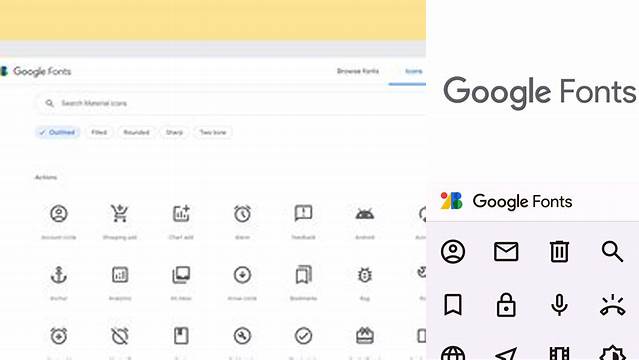
Google Fonts Material Icons Sharp: A Comprehensive Guide
Hey guys, let's dive deep into the world of Google Fonts Material Icons Sharp! If you're a developer, designer, or just someone tinkering with web projects, you know how crucial icons are for user experience and visual appeal. They're the little visual cues that guide users, convey meaning instantly, and add a polished look to your interfaces. Today, we're focusing on a specific, super-useful set: the Material Icons Sharp variant from Google Fonts. These aren't just any icons; they're designed with a clean, crisp, and modern aesthetic that really pops. So, buckle up as we explore everything you need to know about integrating and utilizing these fantastic icons in your projects. We'll cover what they are, why they're so great, how to use them, and some pro tips to make them shine.
Understanding Material Icons Sharp
So, what exactly are Material Icons Sharp from Google Fonts, you ask? Well, think of them as the super-sharp, defined cousins of the regular Material Icons. Google's Material Design system is all about creating intuitive, aesthetically pleasing, and consistent user experiences across different platforms. Within this system, Material Icons are a robust library of more than a thousand high-quality vector icons that you can use in your apps and websites. The 'Sharp' variant specifically offers a more geometric and angular rendition of these icons, providing a distinct, modern, and sometimes even a slightly futuristic feel. Unlike the filled or outlined versions, the sharp icons feature distinct, pointed edges and a more minimalist, less rounded appearance. This subtle difference can have a significant impact on the overall aesthetic of your design. They’re perfect for when you need a crisp, clear, and modern look that stands out. These icons are built on a grid system, ensuring scalability and crisp rendering at any size. This means no matter if you're using them on a tiny button or a large banner, they'll always look fantastic. Plus, being from Google Fonts, they come with the advantage of being easily accessible, well-documented, and, of course, free to use under the Apache License 2.0. This makes them an incredibly attractive option for designers and developers working on a budget or looking for a reliable, high-quality icon set without the hassle of licensing fees. We're talking about a comprehensive library that covers a vast range of concepts, from basic navigation and common actions to more abstract ideas, ensuring you'll likely find exactly what you need.
Why Choose Material Icons Sharp?
Alright, guys, let's talk about why you should seriously consider Material Icons Sharp for your next project. There are tons of icon sets out there, so what makes this particular one stand out? First off, it's the aesthetic. The 'Sharp' style brings a unique, modern, and clean edge to your designs. If you're aiming for a sleek, contemporary look, these icons are a perfect fit. They convey a sense of precision and clarity, which is super important for user interfaces where every element needs to be easily understood. Think about it: a sharp, well-defined icon can communicate an action or a concept much faster than a wordy label. Beyond the visual appeal, the sharp icons offer incredible versatility. They integrate seamlessly with the broader Material Design language, meaning if you're already using Material Design principles in your project, these icons will feel right at home. This consistency is key to creating a cohesive and professional-looking product. Moreover, these icons are part of the Google Fonts ecosystem. This isn't just a small perk; it means they're incredibly easy to implement. You get all the benefits of Google Fonts: fast loading, reliable hosting, and simple integration via CSS or JavaScript. No complex uploads, no server management – just pure, easy-to-use icons. And let's not forget the free aspect! These icons are open source, available under the Apache License 2.0. This means you can use them in commercial projects without worrying about licensing costs or restrictions. That's a huge win for developers and startups, allowing you to allocate your resources more effectively. The sheer volume and variety within the Material Icons library, including the Sharp variant, are also a massive advantage. You're not limited to a few dozen icons; you have access to hundreds, covering almost any use case you can imagine. So, if you want style, consistency, ease of use, and cost-effectiveness, Material Icons Sharp is definitely a top contender.
Conclusion: Elevate Your Designs with Sharp Precision
So there you have it, guys! We've journeyed through the world of Google Fonts Material Icons Sharp, uncovering what makes them special, how to implement them, and how to make them truly sing with custom styling. These aren't just tiny graphics; they're powerful tools that can significantly enhance the usability and aesthetic appeal of your digital creations. The 'Sharp' variant offers a distinct advantage for those seeking a modern, clean, and precise visual language. Its crisp edges and geometric forms provide a sophisticated touch that can elevate a design from ordinary to extraordinary. Remember the ease of integration via Google Fonts, the incredible flexibility offered by CSS for styling, and the added benefits of using SVG formats for ultimate control. Whether you're building a new app, revamping a website, or just adding a little polish to a presentation, Material Icons Sharp are a fantastic, free, and accessible resource. Don't be afraid to experiment with size, color, and placement to create the perfect user experience. By leveraging these icons thoughtfully and applying the best practices we've discussed, you'll be well on your way to crafting interfaces that are not only functional but also visually stunning and incredibly intuitive. Keep creating, keep experimenting, and make your designs sharp!